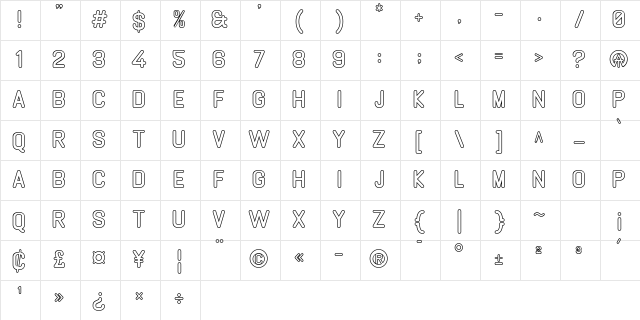
Complete GABOED Outline glyph index. Displaying only characters natively supported by GABOED Outline font.
GABOED is built around its visual character rather than neutral utility - its distinctive forms are designed to make an impression at display sizes.
Font Pairing: Pair with a clean neutral sans-serif for body copy to let GABOED's character lead without overwhelming the composition.
Pro Tip: Use GABOED exclusively at display sizes - it was designed to be seen, not read at length. Let a neutral companion handle body copy.